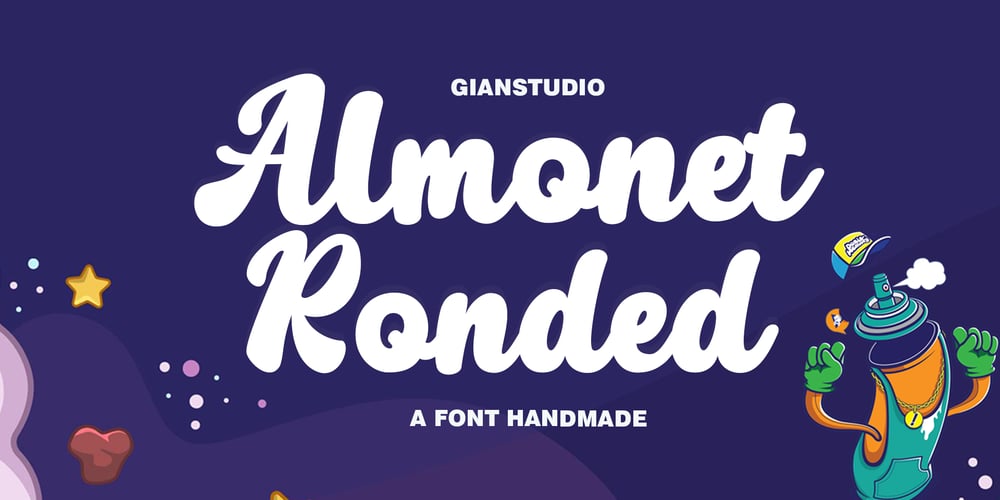
Almonet Ronded Font Family was designed by Afri Giani and published by Gian Studio. Almonet Ronded contains 1 styles and family package options. About ProductAlmonet Ronded is a modern script font with a bold rounded style with a bold and modern look.This font is suitable for logos, branding, product design, product packaging, photography, watermarks, social media posts, advertisements, invitations, stationery, labels, logos, magazines, books, greeting/wedding cards, fashion, makeup, and more. other.What’s Included:- Uppercase & lowercase- Numbers and punctuation marks- Multilingual support- Ligature- Alternative- Washing- Works on PC & Mac- Simple installationAccessible in Adobe Illustrator, Adobe Photoshop, Adobe InDesign, even works in Microsoft Word.PUA Coded Characters – Fully accessible without additional design software.Thank you for your purchase!Hope you enjoy with our fonts!